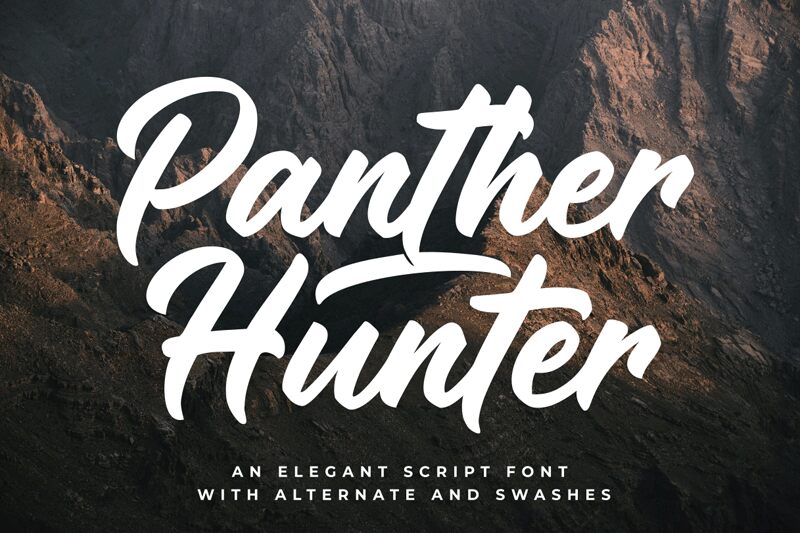
Panther Hunter, designed by Zeenesia Studio, is a captivating cool calligraphy font that adds an air of sophistication to any project. With its semi-bold weight, this font exudes confidence and power. Perfect for branding and logo designs, Panther Hunter brings a touch of elegance to product packaging. Its artistic strokes also make it suitable for wedding invitations and event stationery. Add a refined touch to your social media posts or blog headers with Panther Hunter's modern flair. This versatile font lends itself effortlessly to various creative projects, making it an indispensable asset for designers seeking stylish typography solutions.